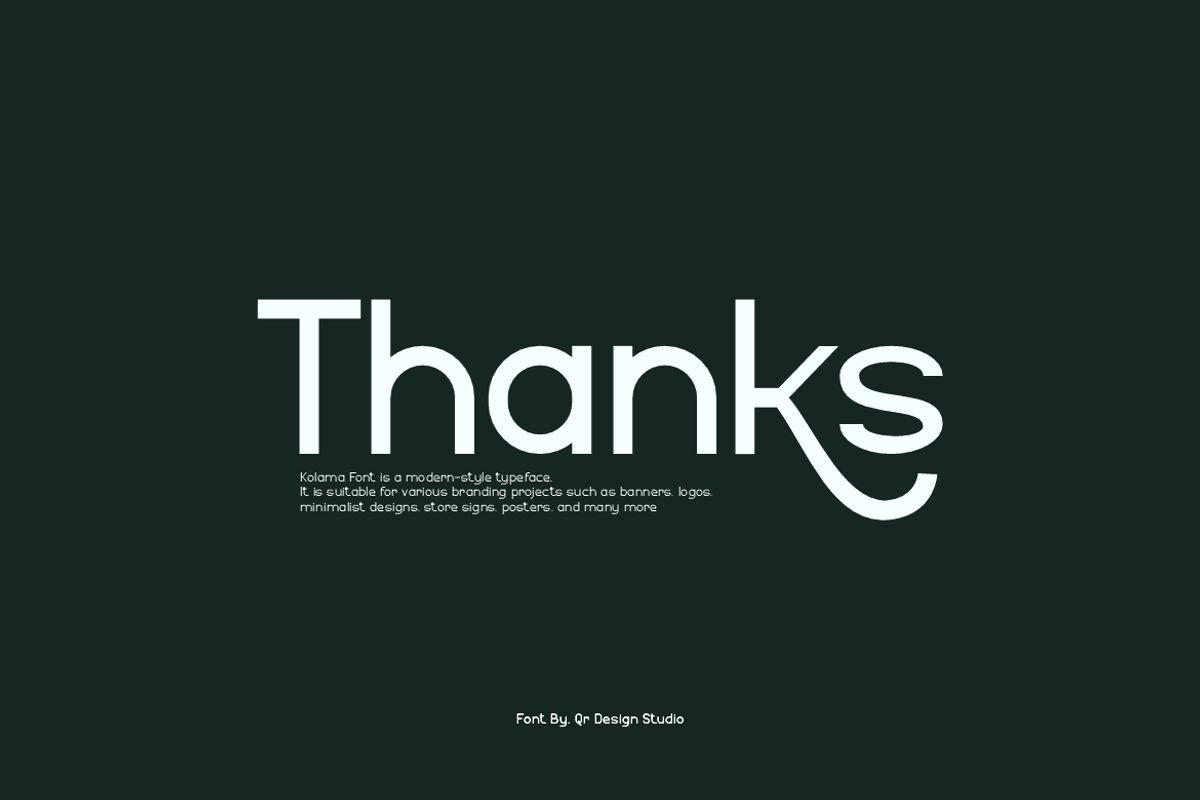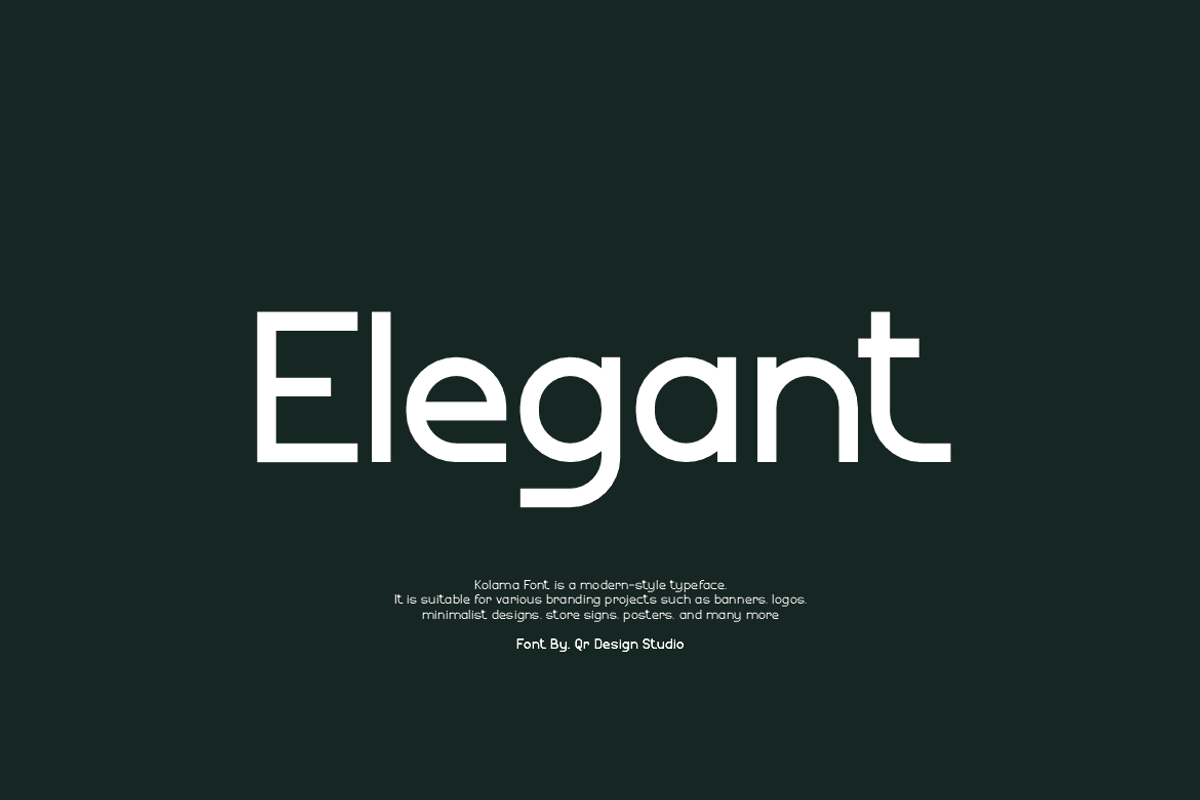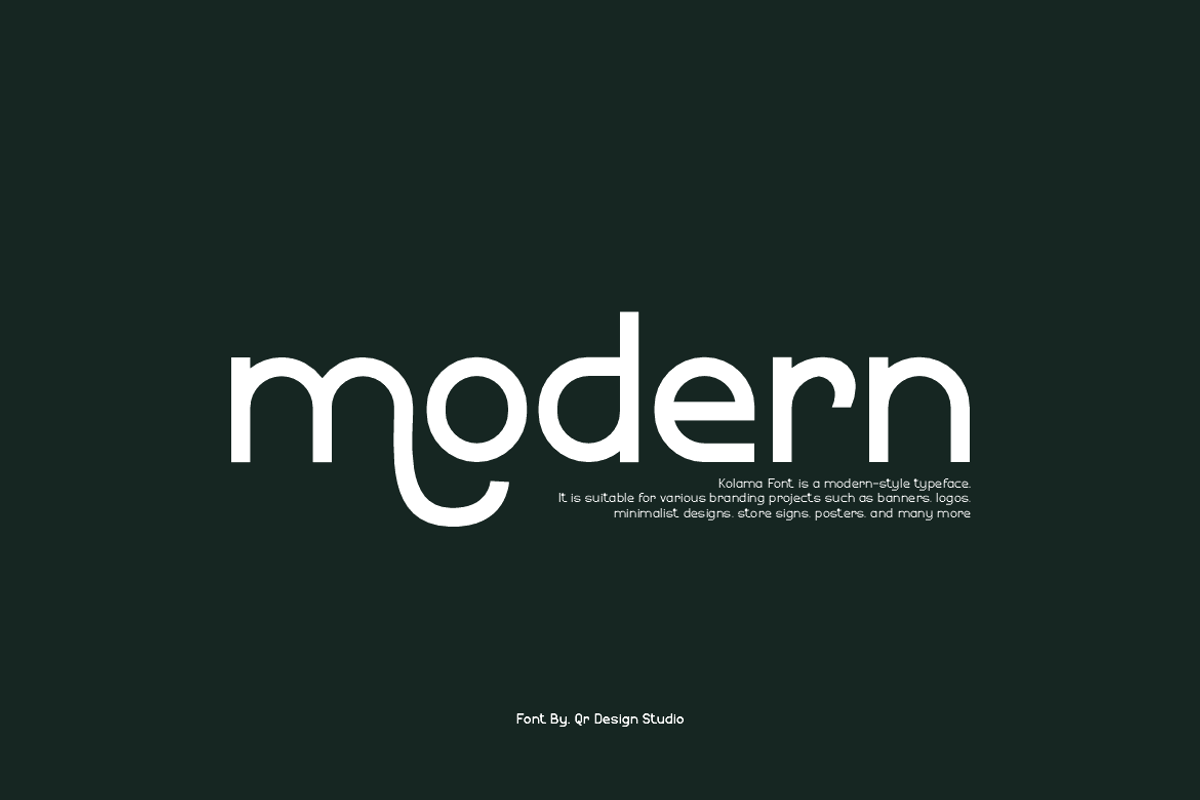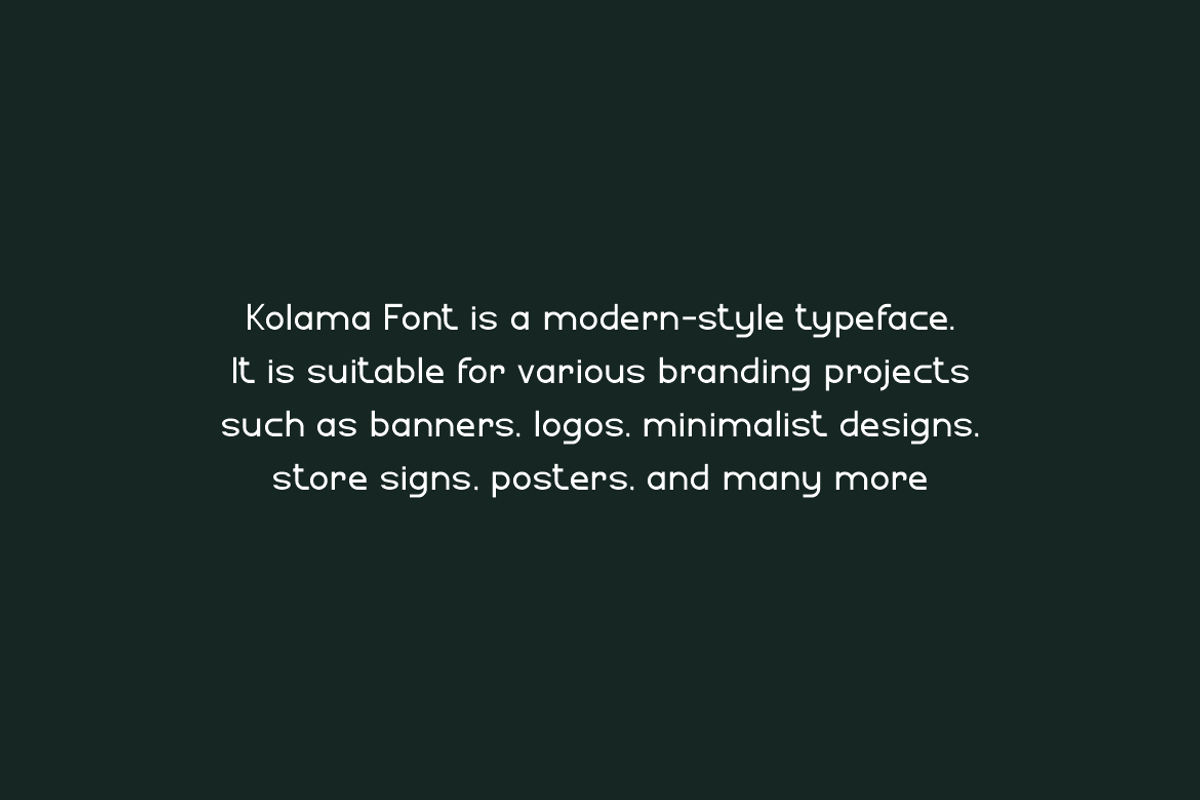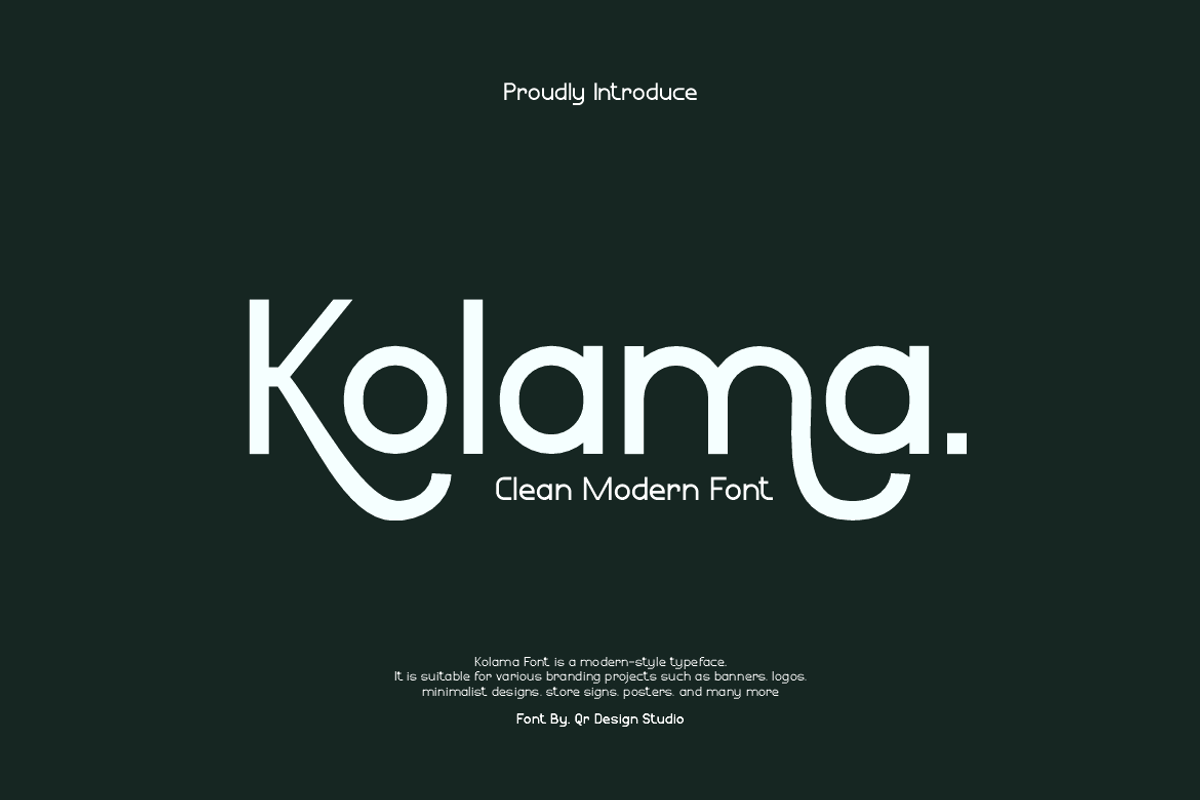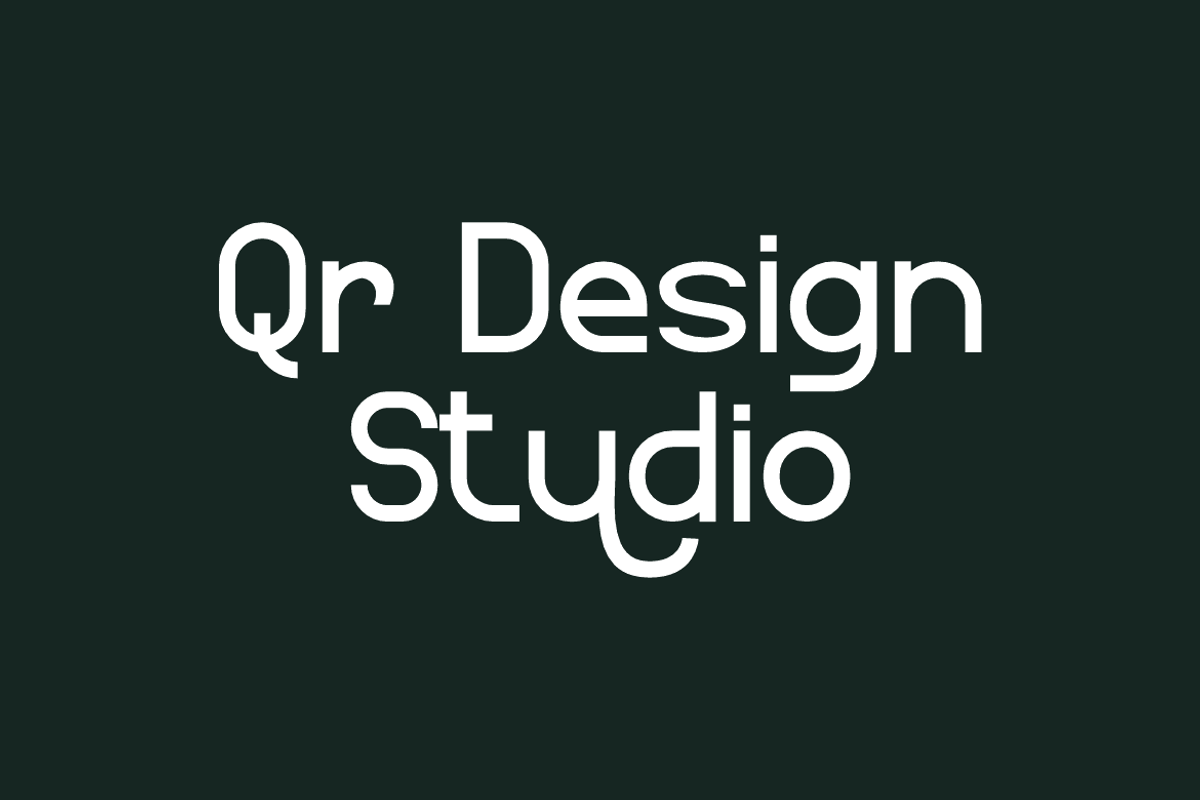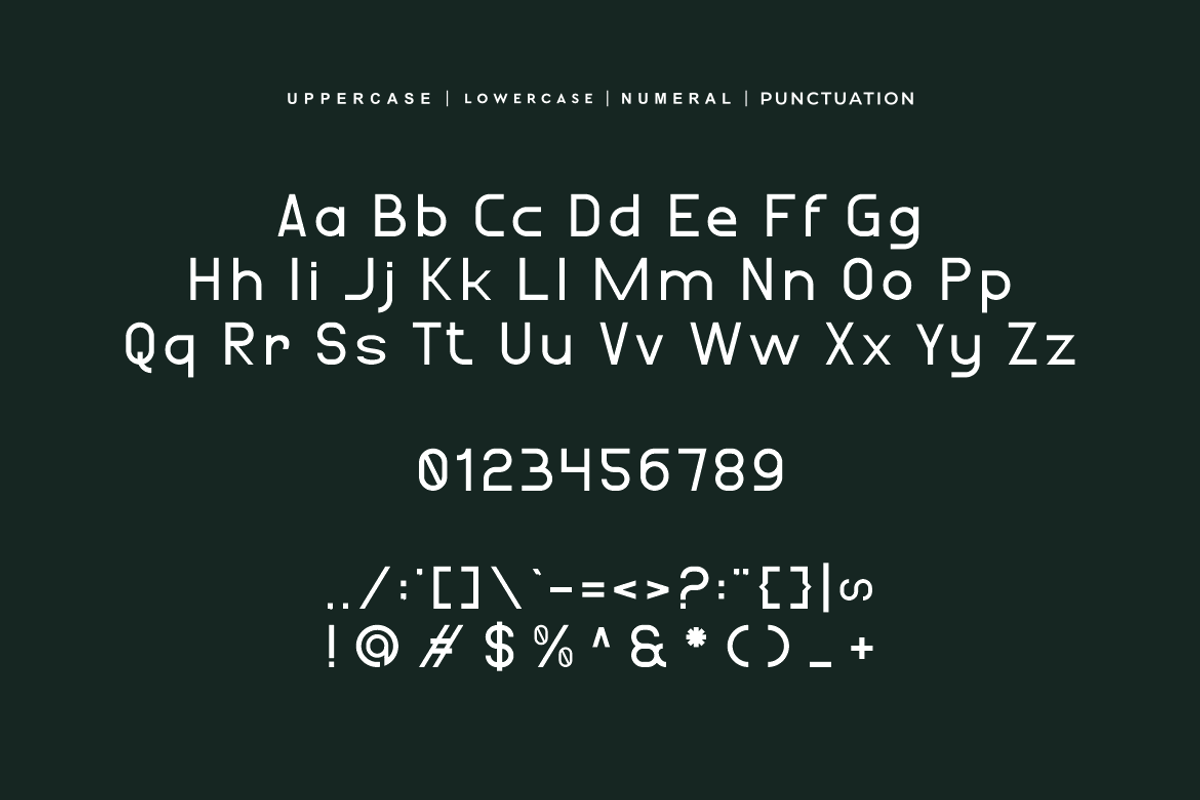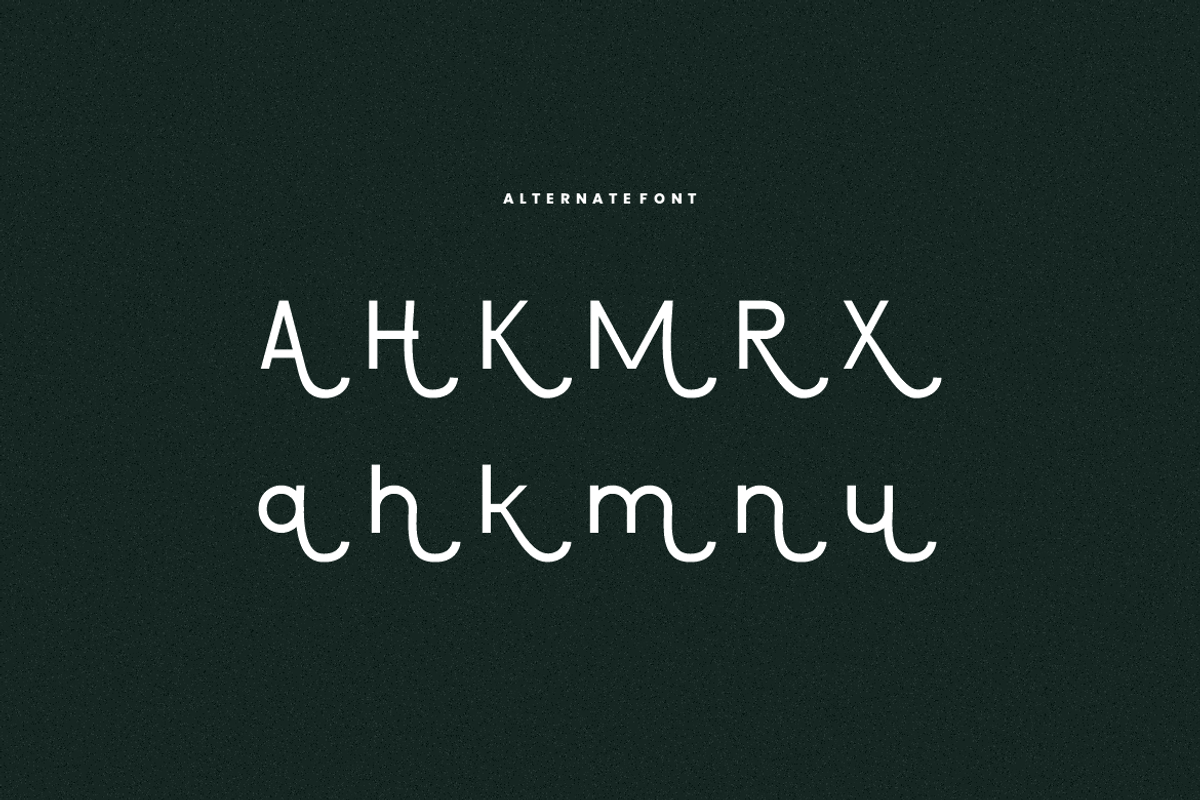
Kolama - Modern Clean Font
Kolama Font is a modern and authentic display typeface. It’s perfect for various branding projects such as logos, minimalist designs, and more. This font stands out beautifully in a wide range of contexts.